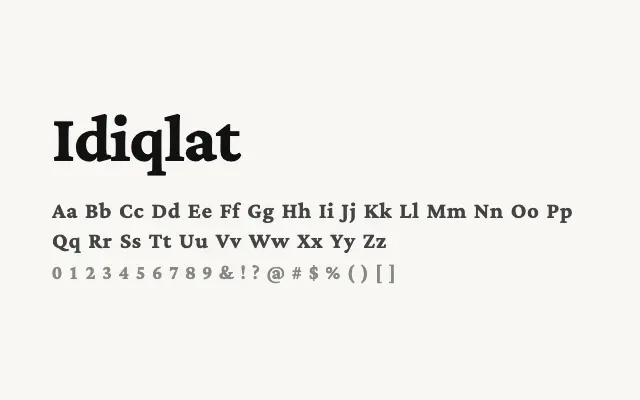
A carefully crafted bilingual serif designed to unite Latin and Syriac scripts in a coherent, readable whole.
Idiqlat addresses the genuine typographic challenge of setting Latin and Syriac text together, making it particularly valuable for academic, religious, or cultural publishing contexts. Its humanist serif structure ensures legibility across the limited weight range available. The font fills a real gap for anyone working with Syriac alongside Latin text.
Idiqlat is a Latin and Syriac script typeface with refined, low-contrast humanist serif letterforms designed to harmonise across both writing systems. The relatively light weight range reflects its focus on scholarly and liturgical text settings.